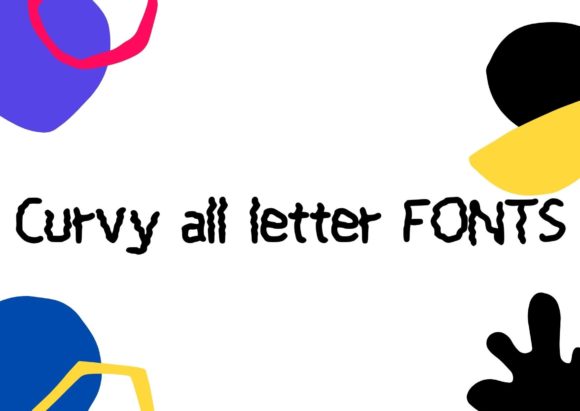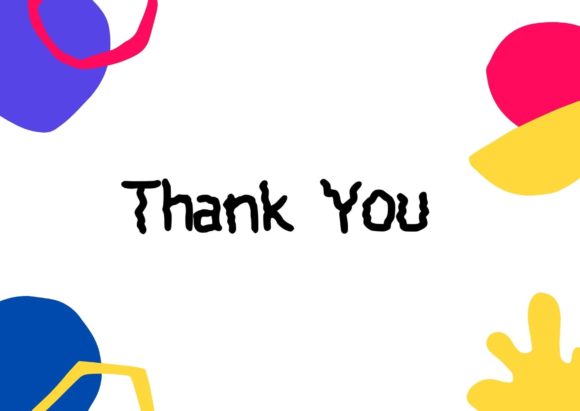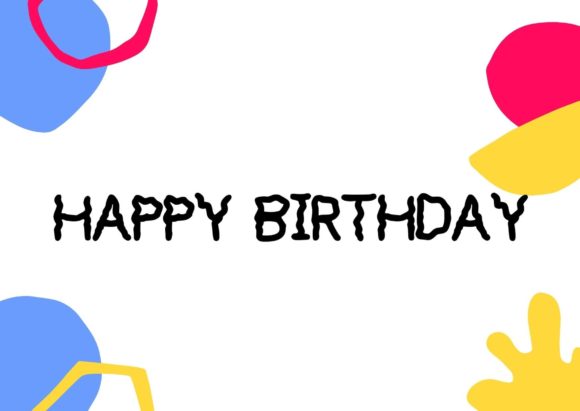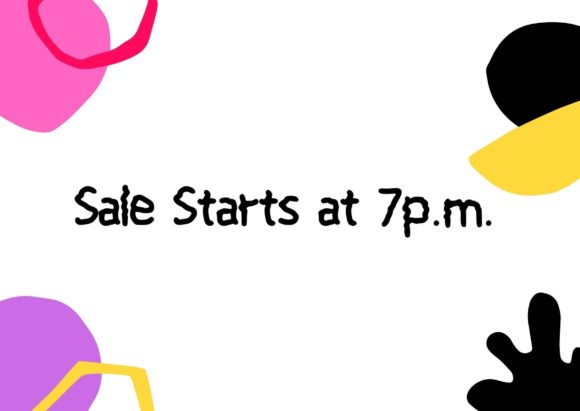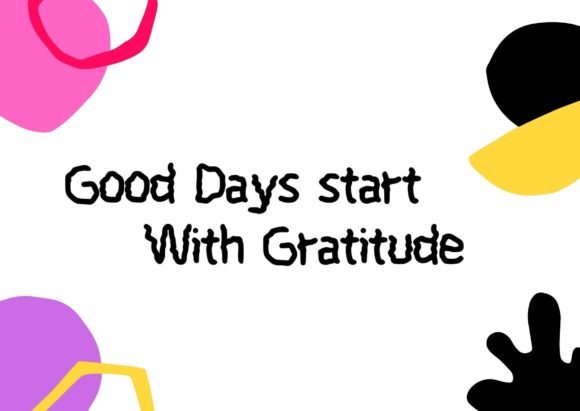
Curvy Font
About Curvy Font
Curvy is a wavy and delicate handwritten font. No matter the topic, this font will be an incredible asset to your fonts’ library, as it has the potential to elevate any creation.